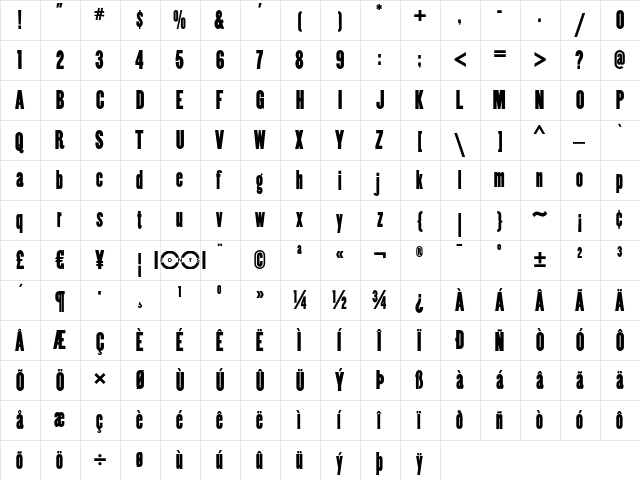
Copper Canyon WBW Regular
Design Context for Copper Canyon WBW Typeface
Copper Canyon WBW offers clean, dependable letterforms without strong stylistic allegiance, making it a practical choice for designers who need flexibility.
Pro Tip: Use Copper Canyon WBW in both headline and body roles to test its range before committing to a single application.